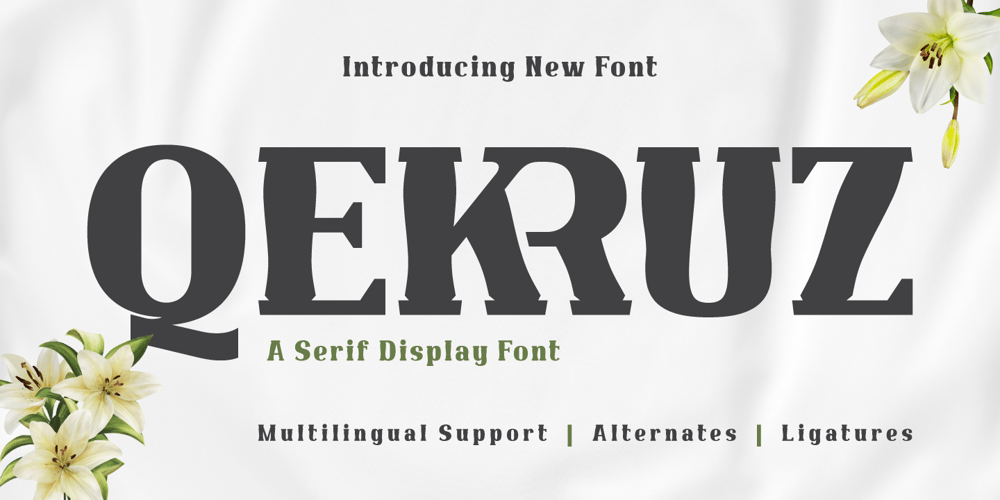
Qekruz
Qekruz font
Qekruz Font Family was designed by Rozikan and published by Twinletter. Qekruz contains 1 styles and family package options. Qekruz is the perfect reflection of modernism’s classic elegance in a stunning serif font. With this theme, this font is an excellent solution for any kind of project that requires an elegant touch of classic modernism.What’s Included : File font All glyphs Iso Latin 1 Alternate, Ligature Simple installations PUA Encoded Characters – Fully accessible without additional design software. Fonts include Multilingual support